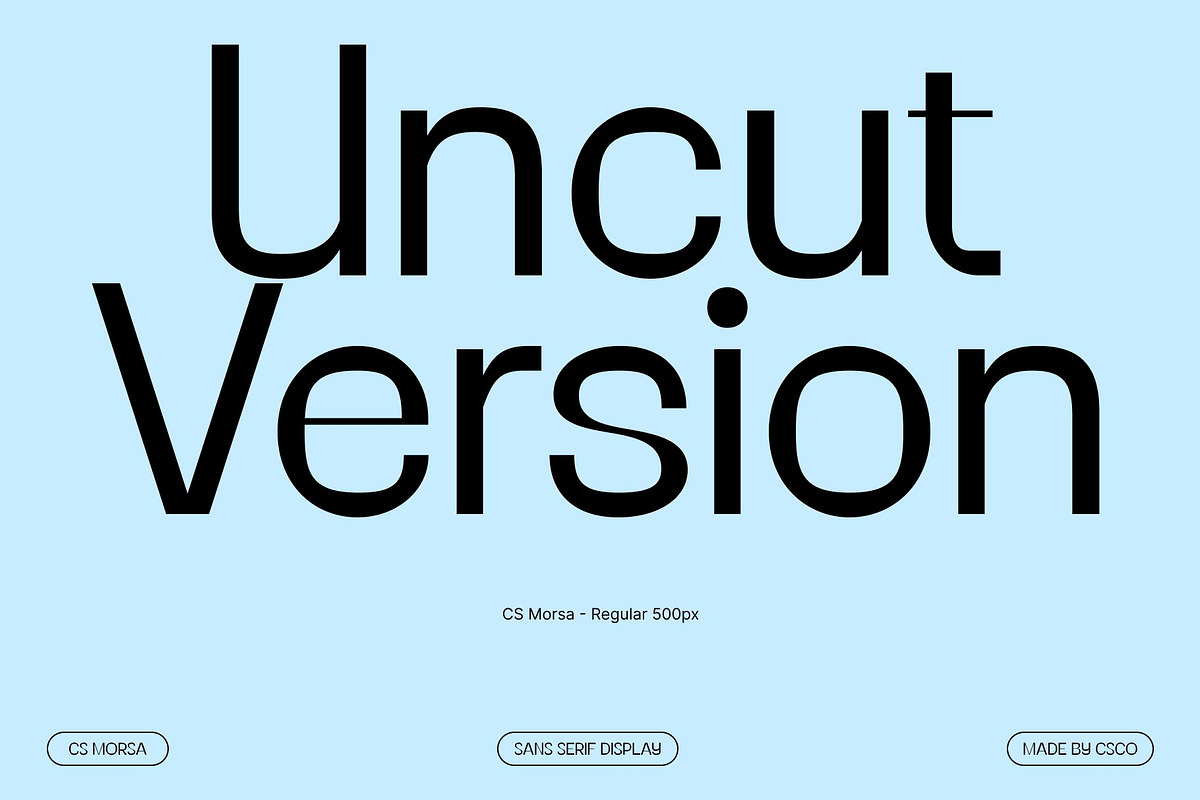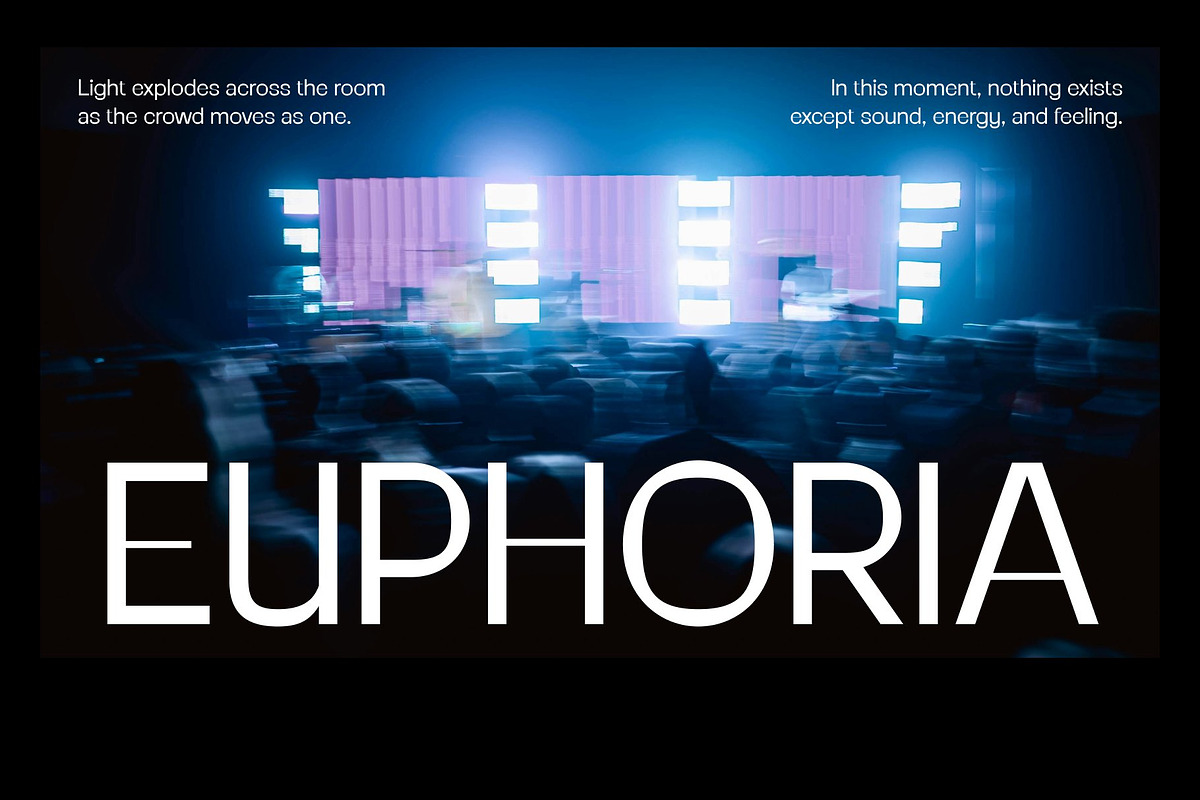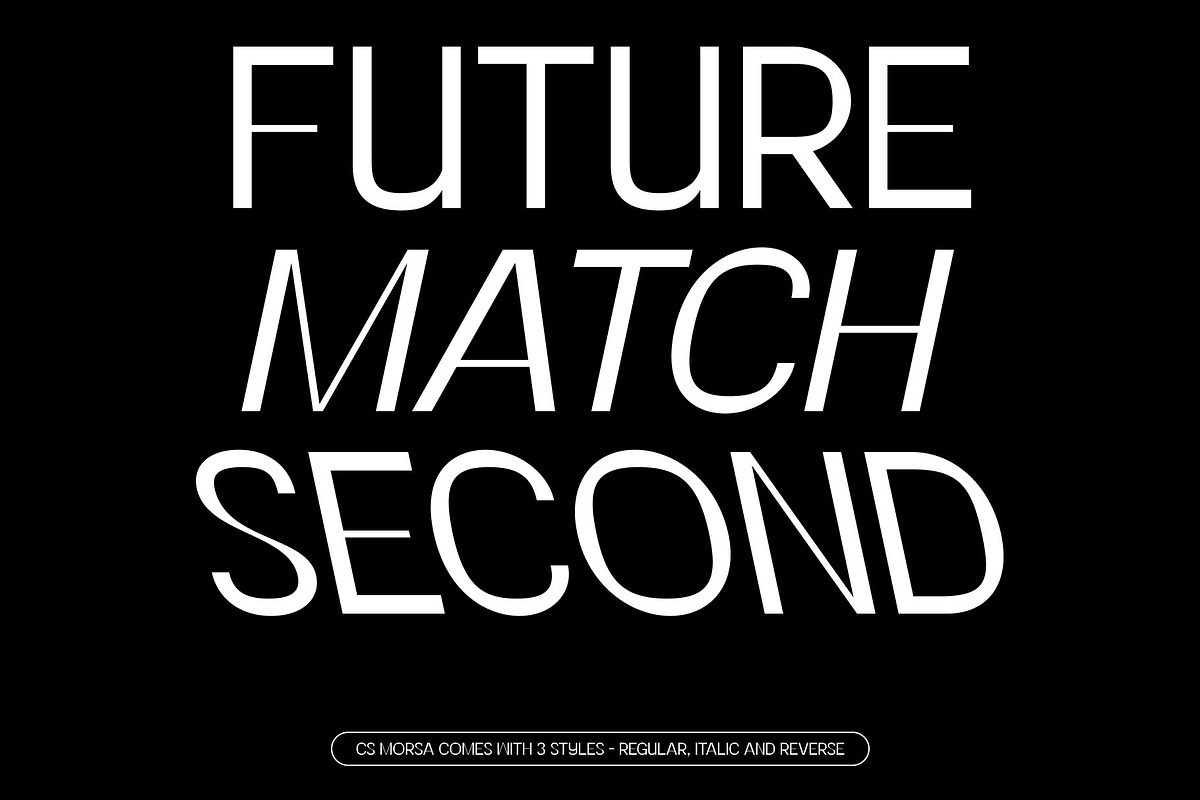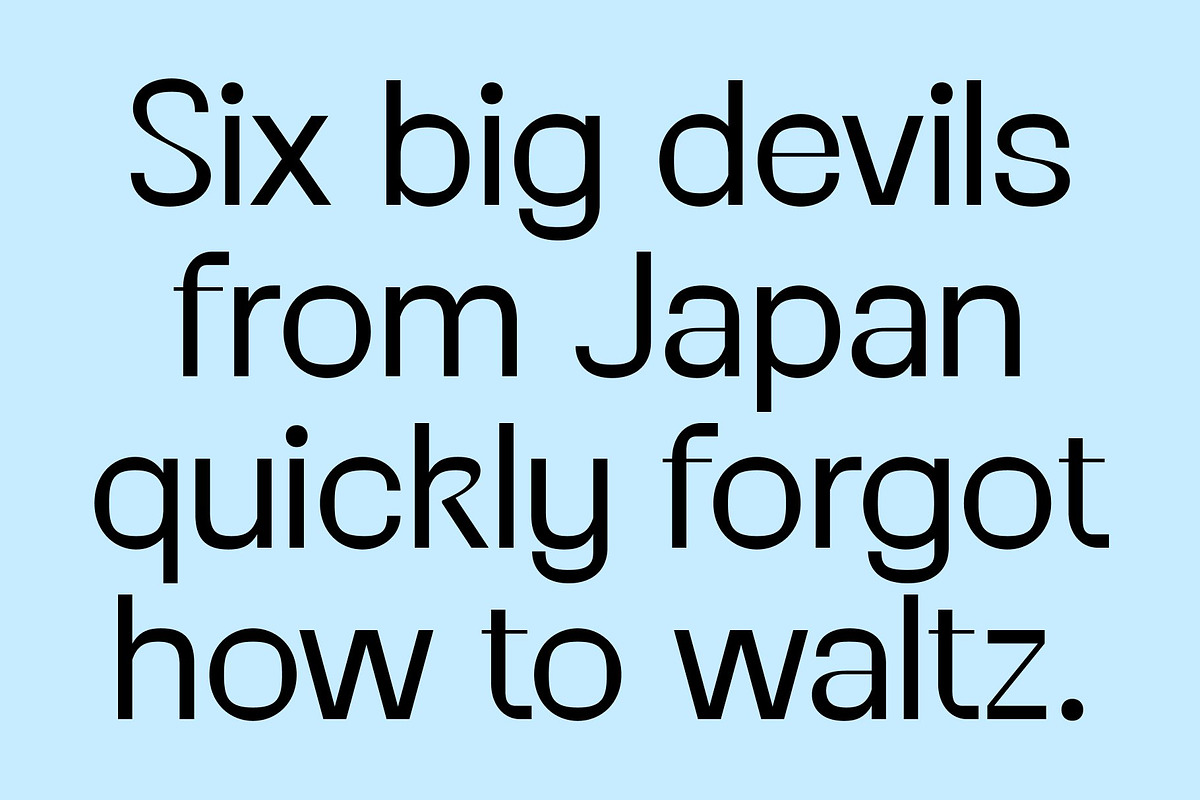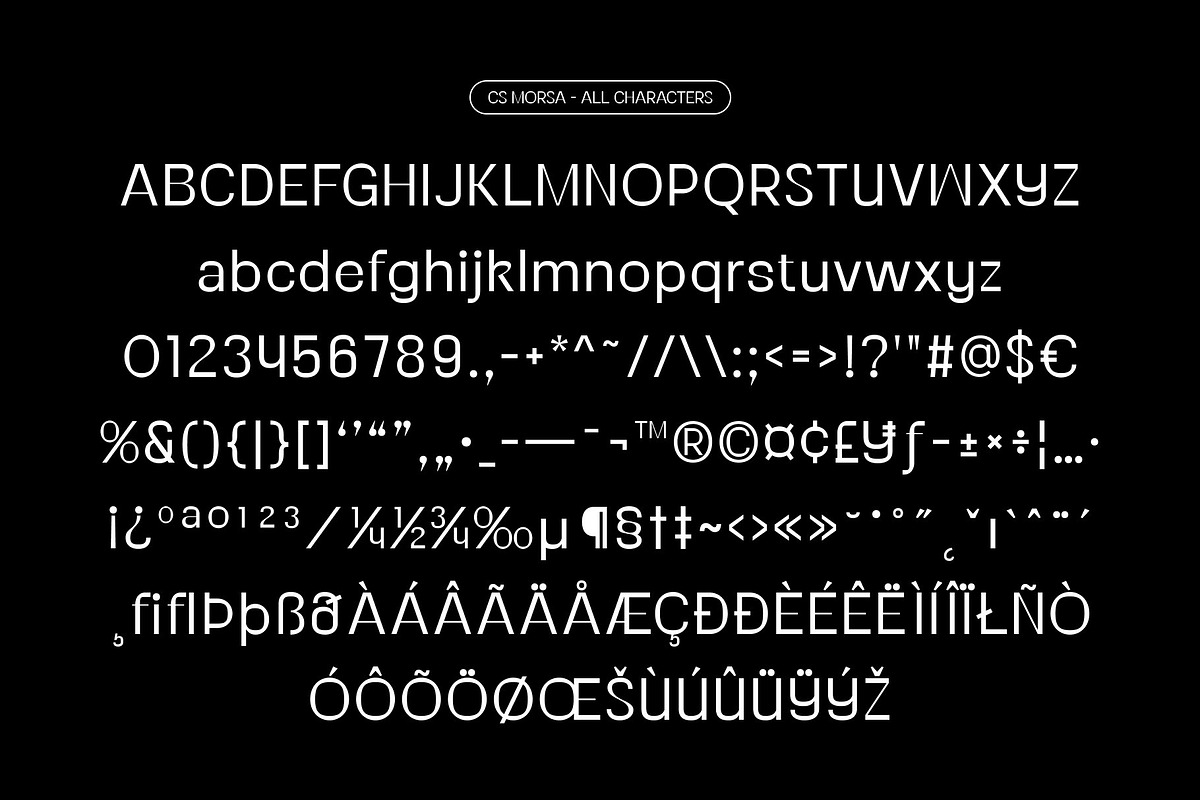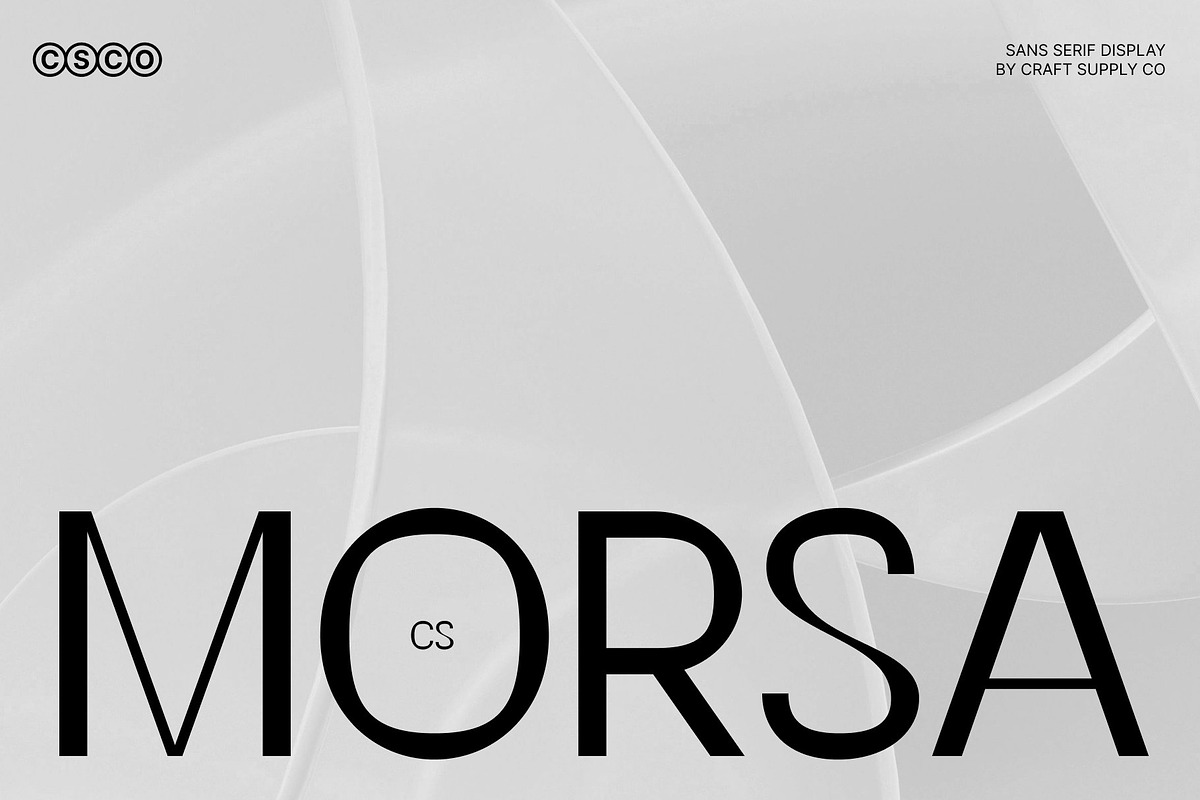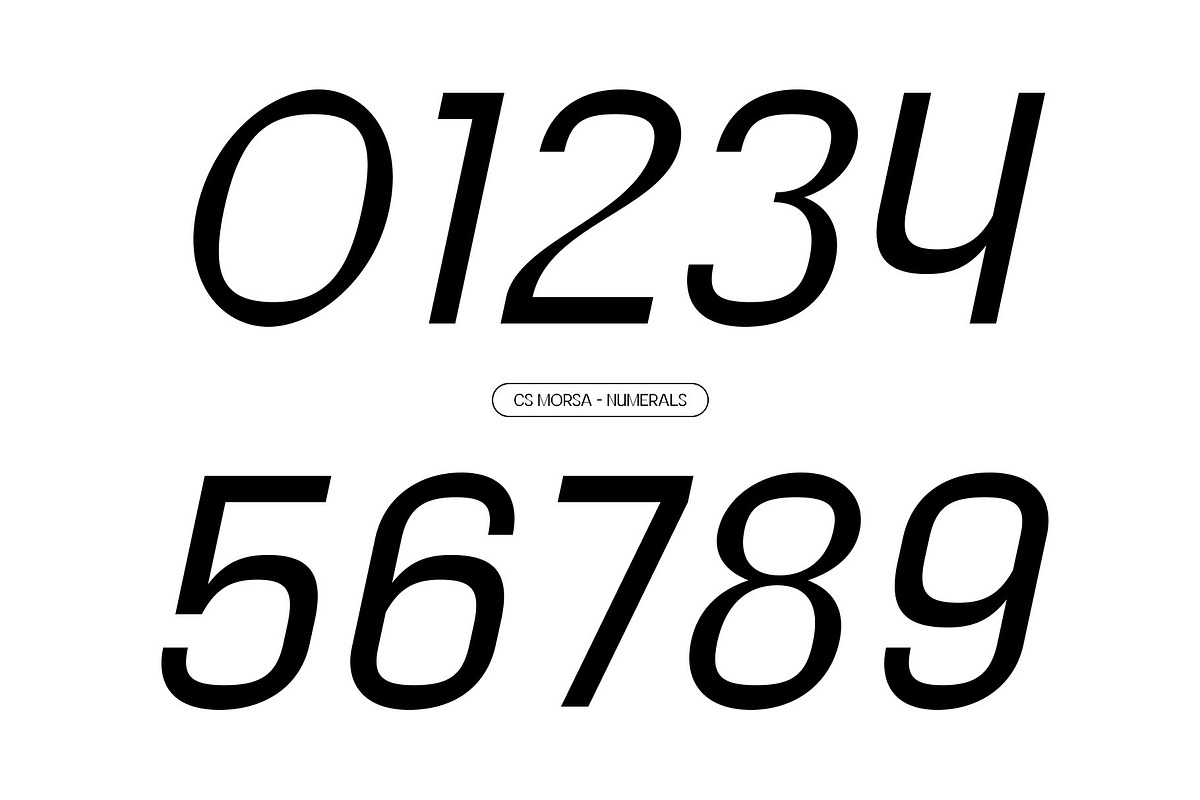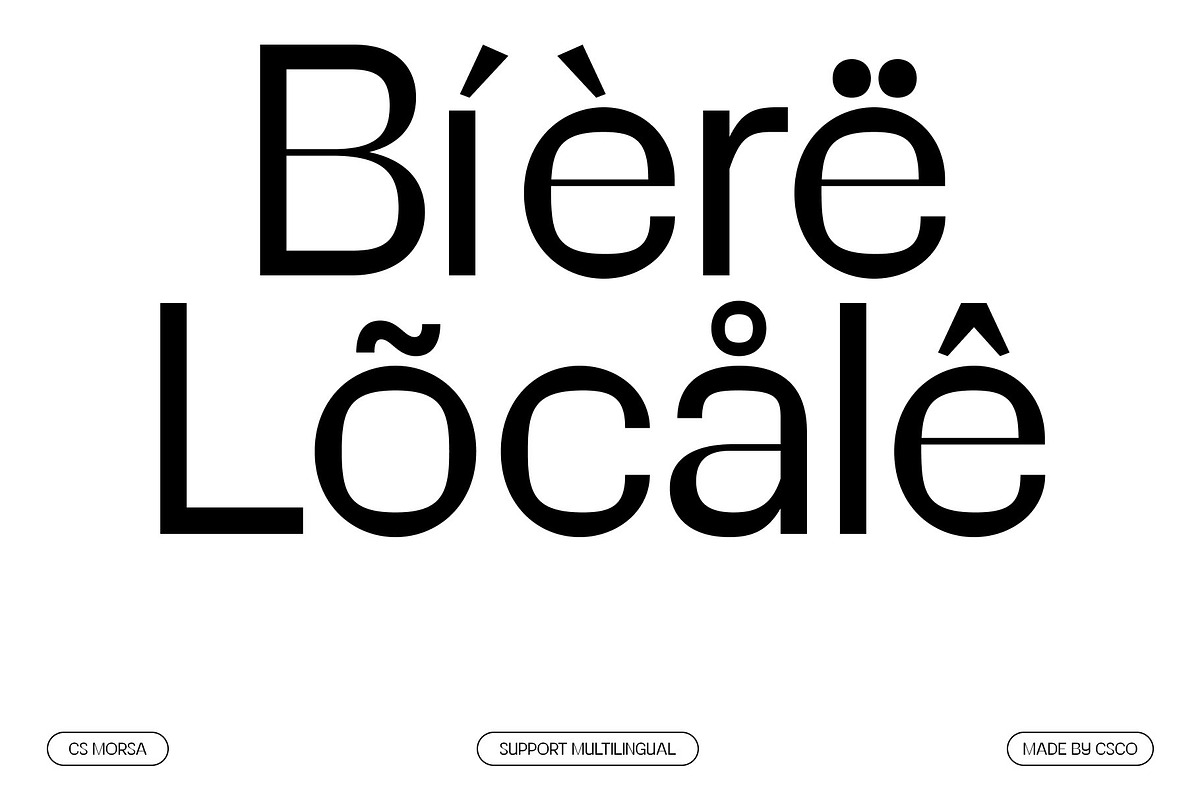
CS Morsa – Modern Sans Serif
CS Morsa – Contemporary Clarity with Stylish Character
Modern Sans Serif Font with Hybrid Design This is a modern sans serif font designed with a hybrid approach that blends clean structure and contemporary style. Its balanced construction delivers a professional appearance without feeling rigid or overly formal. By combining precision with subtle personality, creates a refined yet approachable typographic voice that feels modern, aesthetic, and confident.
Clean Forms with Stylish Flexibility The letterforms of this font are built on clean lines and thoughtful proportions, ensuring excellent readability across various layouts. Subtle stylistic details add visual interest, preventing the font from feeling cold or mechanical. This balance allows to maintain a polished look while still expressing creativity and character, making it suitable for both corporate and artistic contexts.
Professional Tone with Visual Character This font communicates professionalism with ease and sophistication. Its contemporary design feels stylish and current, making it ideal for projects that require credibility without stiffness. The font adapts seamlessly to headlines, subheadings, and supporting text, offering flexibility for expressive layouts and modern visual storytelling.
Perfect for Branding, Editorials, and Creative Projects Designed for versatile modern applications, this font is ideal for branding, posters, editorials, and creative projects that seek a stylish and sophisticated appearance. Its hybrid sans serif style works beautifully for modern brands, magazines, campaigns, and promotional materials.